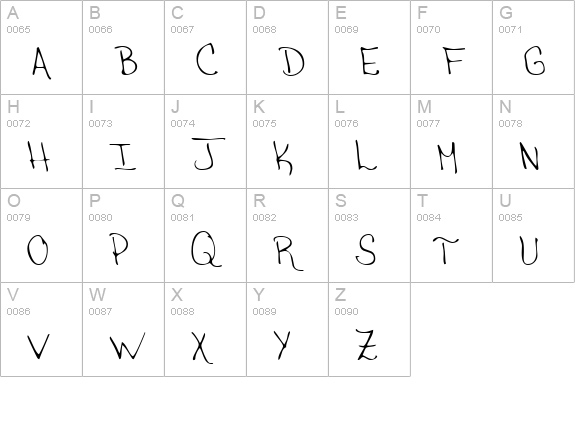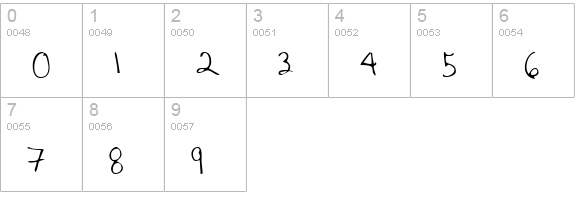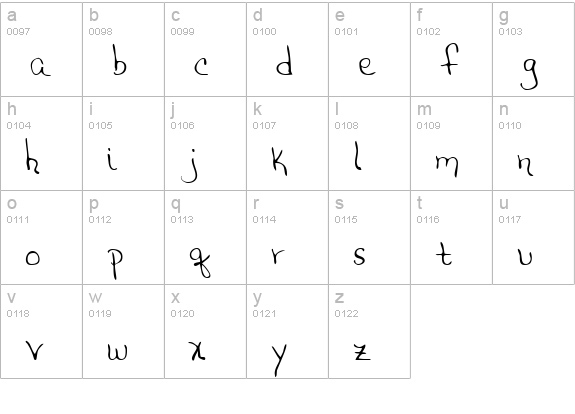
NatsHand Regular Font Details
NatsHand Regular is the standard, neutral variant in the NatsHand typeface family \xE2\x80\x94 well suited to general body text, paragraphs, and standard typographic work.
NatsHand Regular font is a charming and versatile typeface that exudes a warm and friendly feel. Its handwritten style adds a personal touch to any design, making it perfect for a variety of projects such as invitations, greeting cards, logos, and more. The fluid strokes and gentle curves of NatsHand Regular give it a natural and organic look, creating a sense of authenticity and approachability. Best of all, NatsHand Regular is available for free download at FontsMarket.com. This means you can easily access this delightful font to enhance your creative projects without any cost. With its unique character and easy readability, NatsHand Regular is sure to become a go-to choice for adding a touch of handmade charm to your designs. Download it today and let your creativity flow with this wonderful free font!